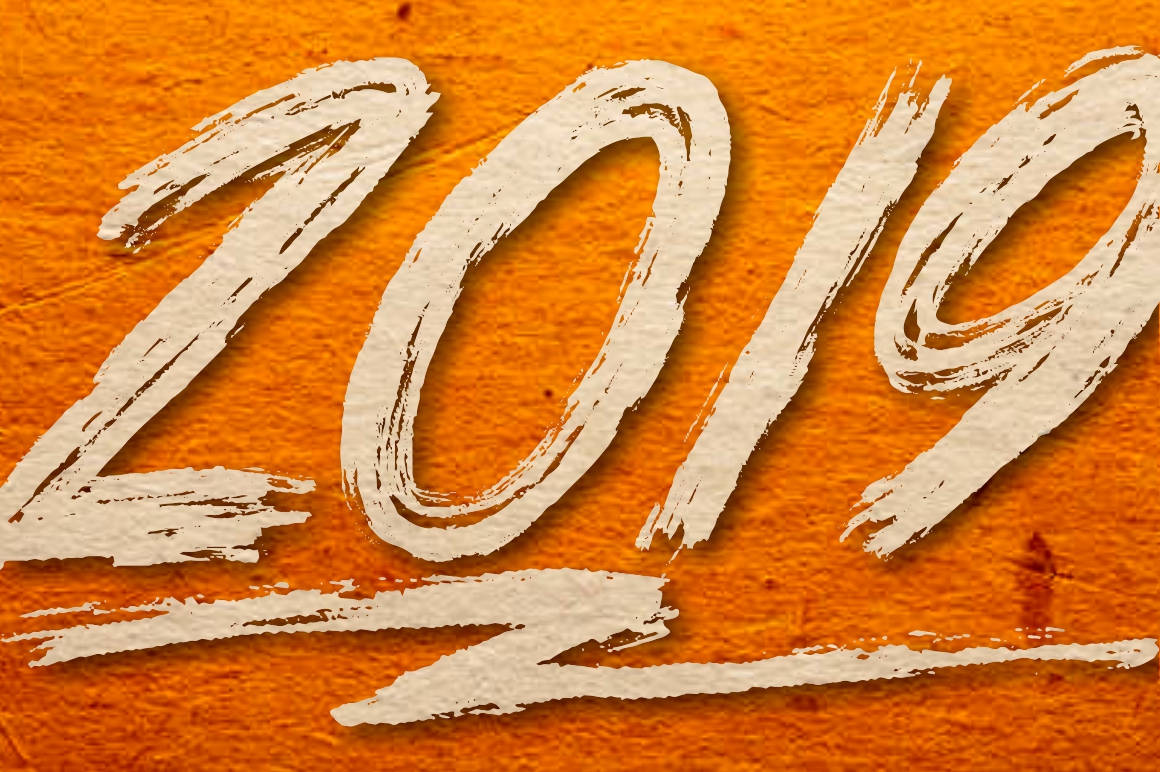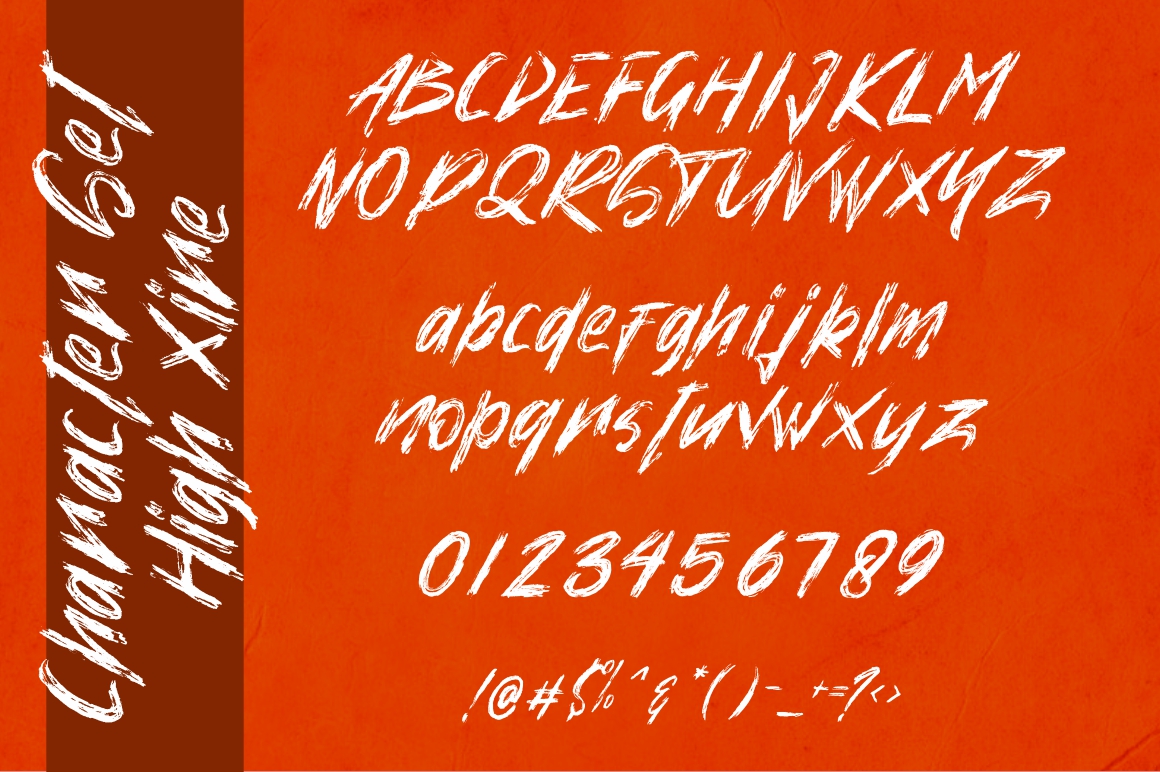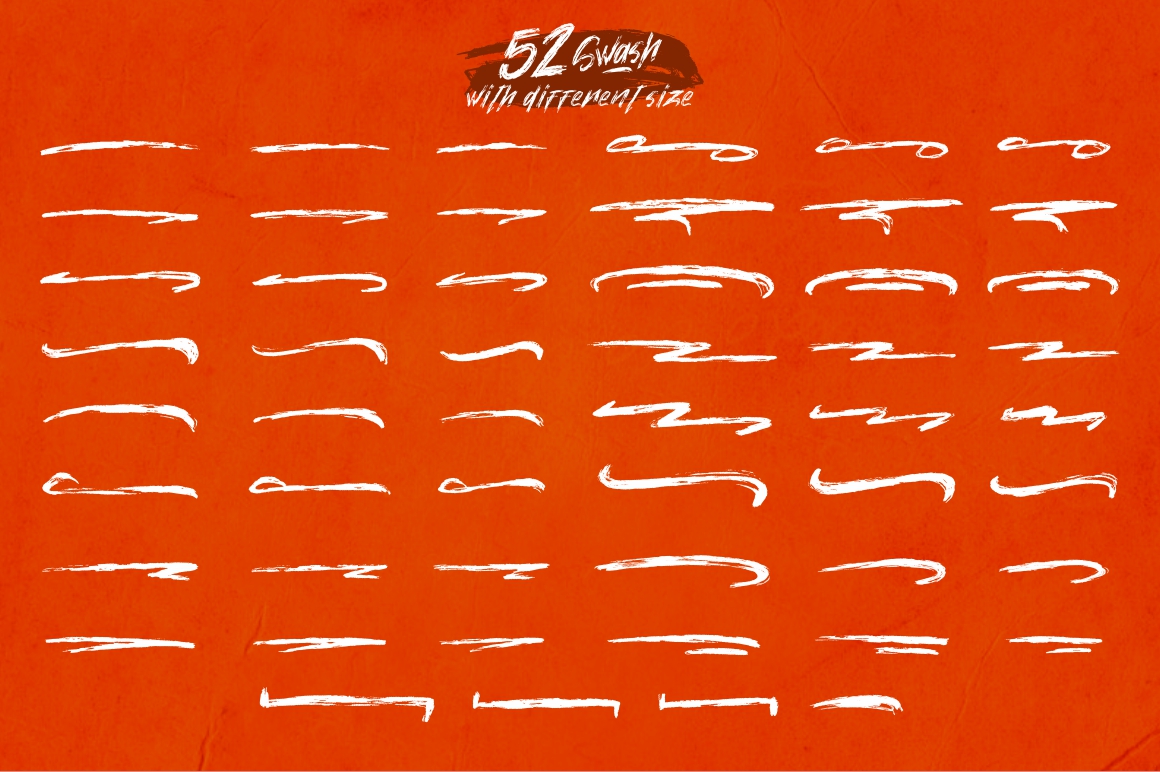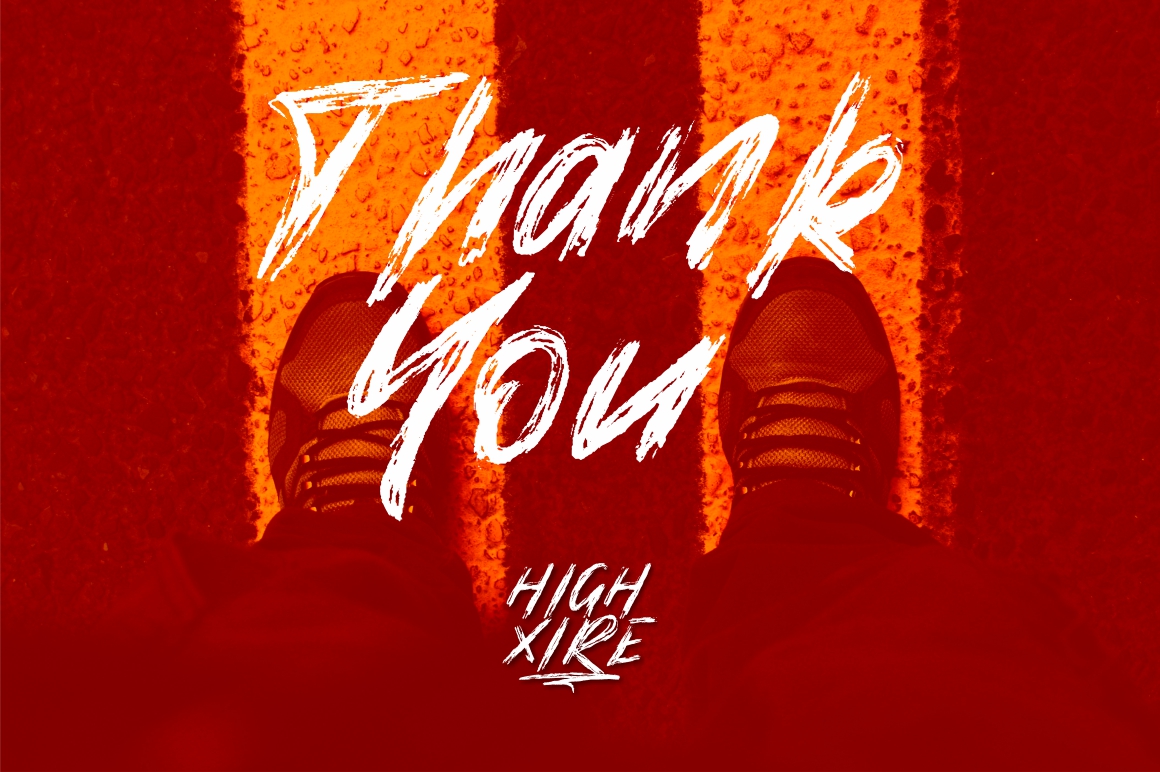
High Xire Free Font
High Xire Free Font combines attractive curves with a fresh urban edge; delivering a stylish which is guaranteed to add an eye-catching appeal to your logo designs, brand imagery, handwritten quotes, product packaging, merchandise & social media posts. This free typeface was designed by a talented Garisman Studio. If you like it don’t forget to check out the full version.